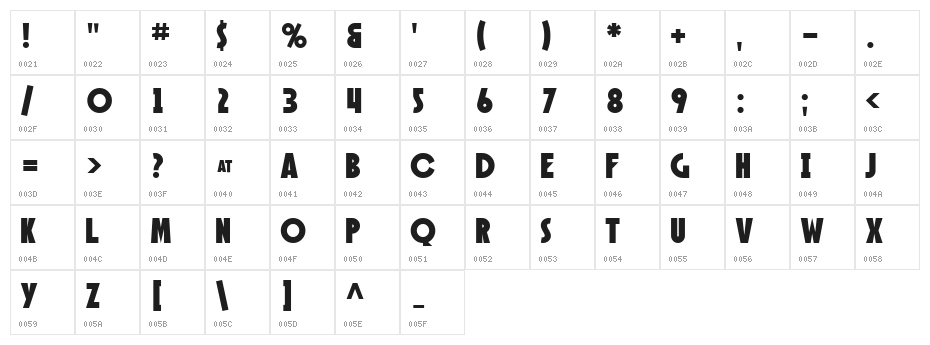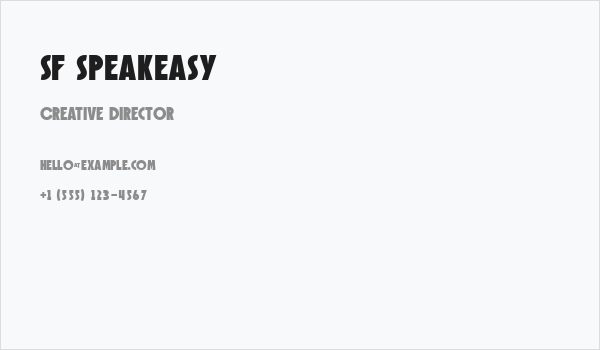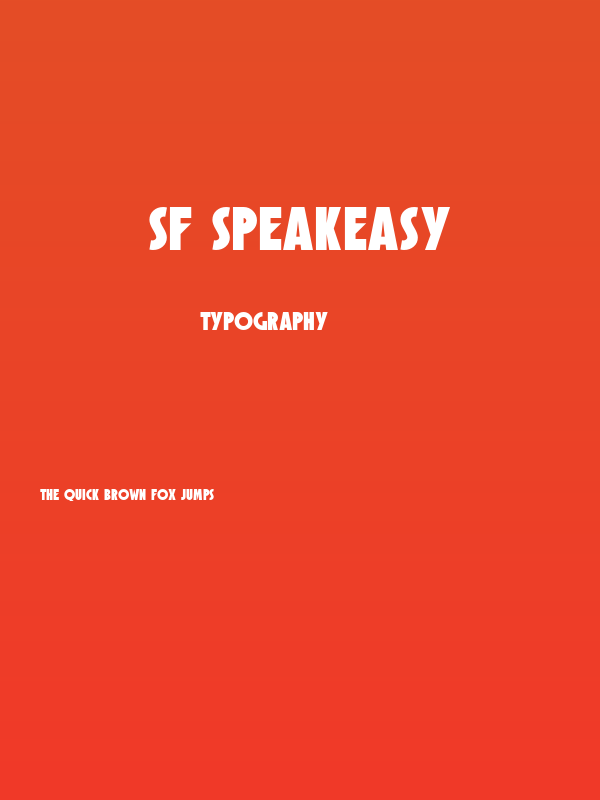
SF Speakeasy Font
SF Speakeasy Description
This font features a bold and striking design with geometric elements and a strong presence. The characters are crafted with sharp angles and a consistent stroke weight, giving it a distinctive and modern appearance. The uppercase letters are particularly prominent, with a uniform height and width that create a cohesive look. The numerals and special characters maintain the same bold style, ensuring readability and impact. This font's unique style makes it suitable for attention-grabbing headlines and creative projects that require a touch of modern flair.
| Proposed Projects | Ideal for posters, branding, advertising, and any project requiring a bold statement. |